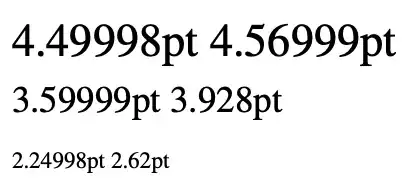
I am trying to scale the mtpro2 font to work with the newtxtext font package. That is because I observed that the inline math equations in the footnotes are slightly bigger or rather different than the text around it. I am sure that it is the case.
I have been trying to follow the answer of the question Scaling the mtpro2 fonts to work with Baskerville, and I only have one problem: what is the x-height of newtxtext? If I use the code from that answer without changing it, then the resulting math font will be smaller than the text font.
Here is an MWE for you to test your answer:
\documentclass{article}
\usepackage{newtxtext}
\usepackage[lite,subscriptcorrection,nofontinfo]{mtpro2}
\begin{document}
Some ordinarily sized text. $x^2 + y^2 = z^2$\footnote{Some ordinarily sized footnote text. $x^2 + y^2 + z^2$ Here are two numbers, the first one is text, the second one is math: 0$0$}
\end{document}
P.S. Do you know an archive that has the x-heights of all the fonts? It will be really helpful.
The mtpro2 fonts are optically scaled and you need to apply different magnifications in order that they match the size of NewTX.
However this would make the digits smaller, so I also redefine the math codes of the digits to use the text font.
\documentclass{article}
\usepackage{newtxtext}
\usepackage[lite,subscriptcorrection,nofontinfo]{mtpro2}
\DeclareFontShape{LMP1}{mtt}{m}{it}{ <-7> s[0.8588] mt2mif <7-9> s[0.9165] mt2mis <9-> s*[0.97375] mt2mit }{} \DeclareMathSymbol{0}{\mathalpha}{operators}{"30} \DeclareMathSymbol{1}{\mathalpha}{operators}{"31} \DeclareMathSymbol{2}{\mathalpha}{operators}{"32} \DeclareMathSymbol{3}{\mathalpha}{operators}{"33} \DeclareMathSymbol{4}{\mathalpha}{operators}{"34} \DeclareMathSymbol{5}{\mathalpha}{operators}{"35} \DeclareMathSymbol{6}{\mathalpha}{operators}{"36} \DeclareMathSymbol{7}{\mathalpha}{operators}{"37} \DeclareMathSymbol{8}{\mathalpha}{operators}{"38} \DeclareMathSymbol{9}{\mathalpha}{operators}{"39}
\textheight=4cm
\begin{document}
\sbox0{x}\the\ht0\ \sbox0{$x$}\the\ht0
{\footnotesize\sbox0{x}\the\ht0\ \sbox0{$x$}\the\ht0}
{\tiny\sbox0{x}\the\ht0\ \sbox0{$x$}\the\ht0}
Some ordinarily sized text. $x^2 + y^2 = z^2$\footnote{Some ordinarily sized footnote text. $x^2 + y^2 + z^2$ Here are two numbers, the first one is text, the second one is math: 0$0$}
\end{document}
You may need to do similar adjustments also for other mtpro2 fonts.
How did I get the factors? Comment out the \DeclareFontShape declaration and you'll see the different heights, from which I computed the scaling factors.
Here are the figures without the scaling.